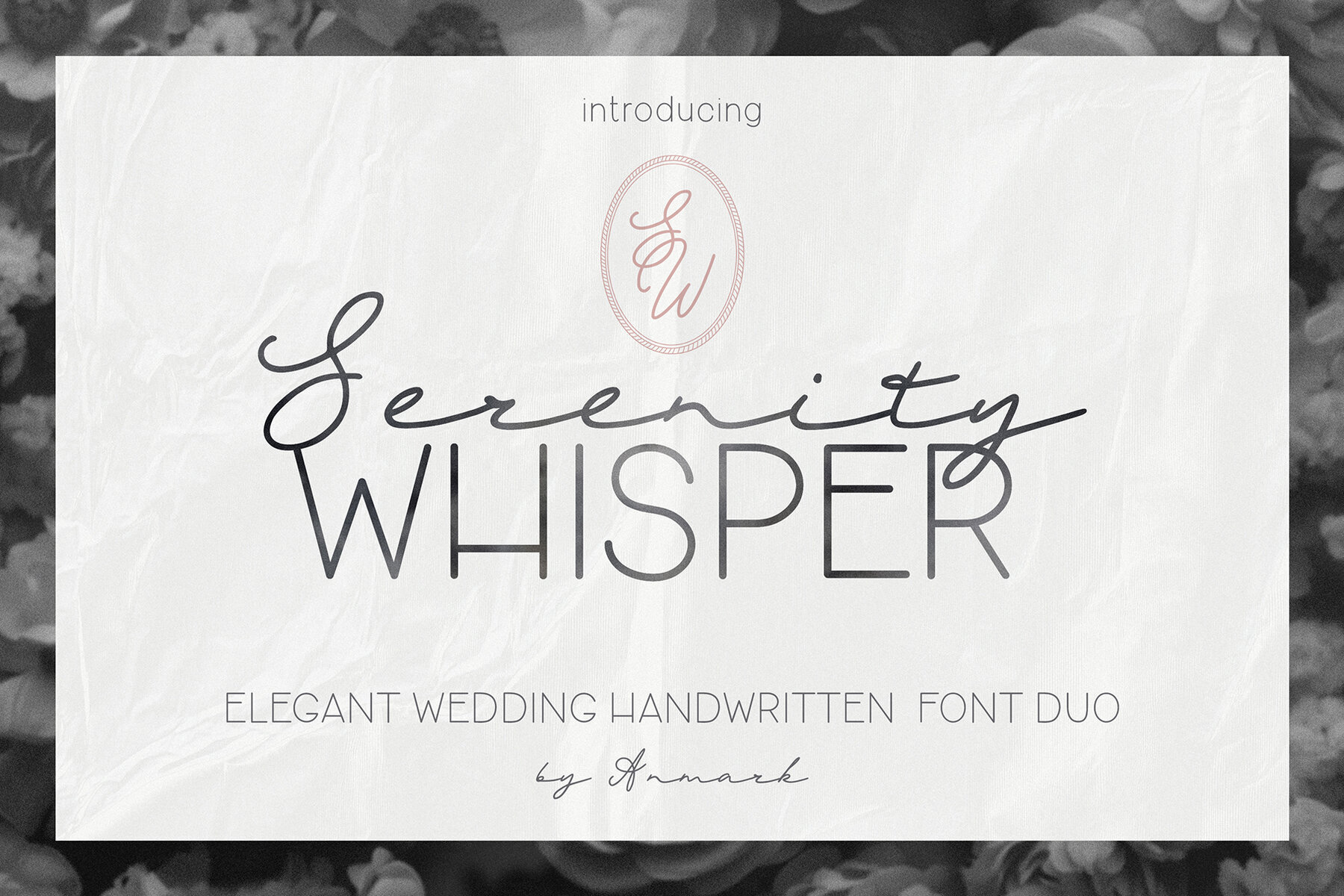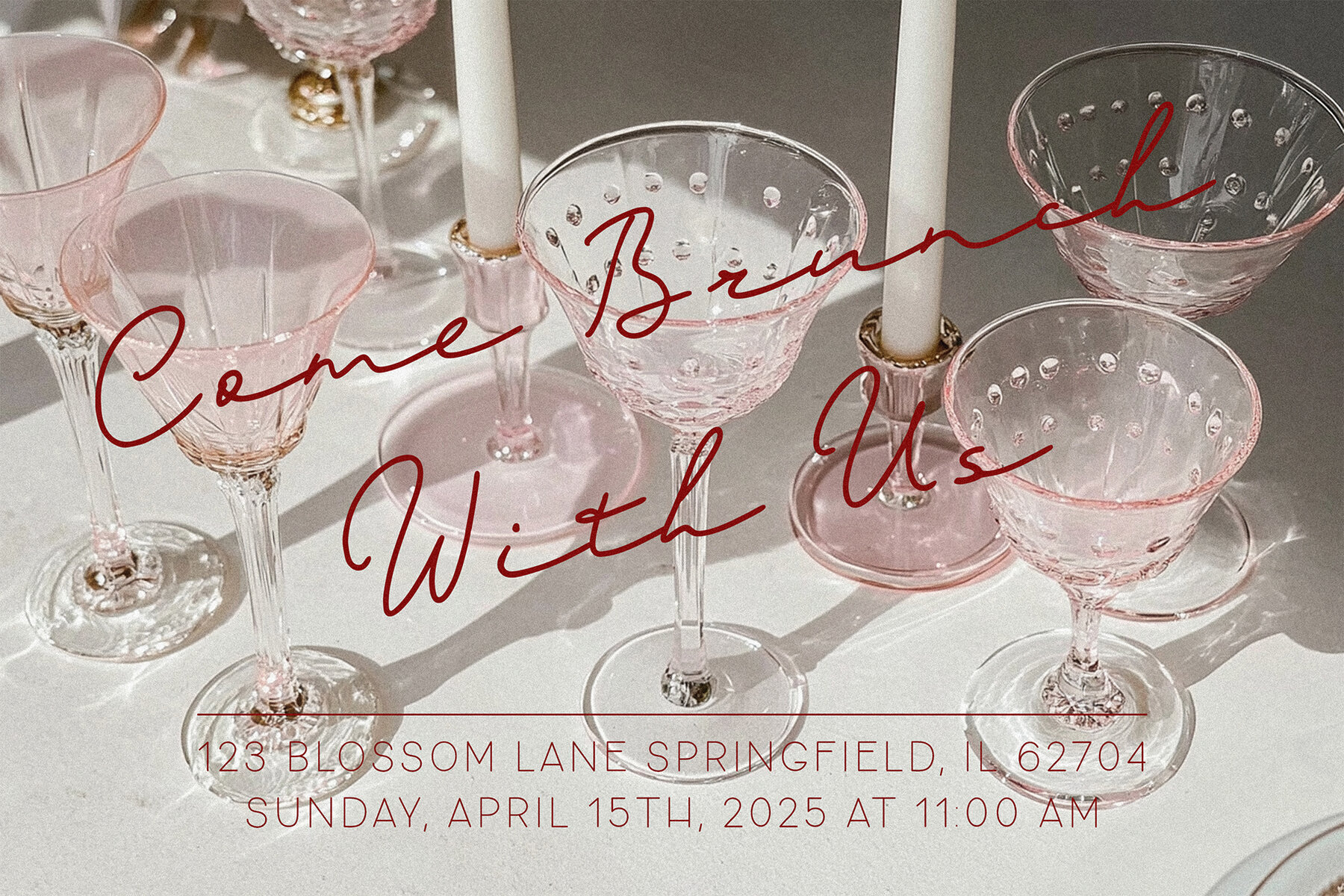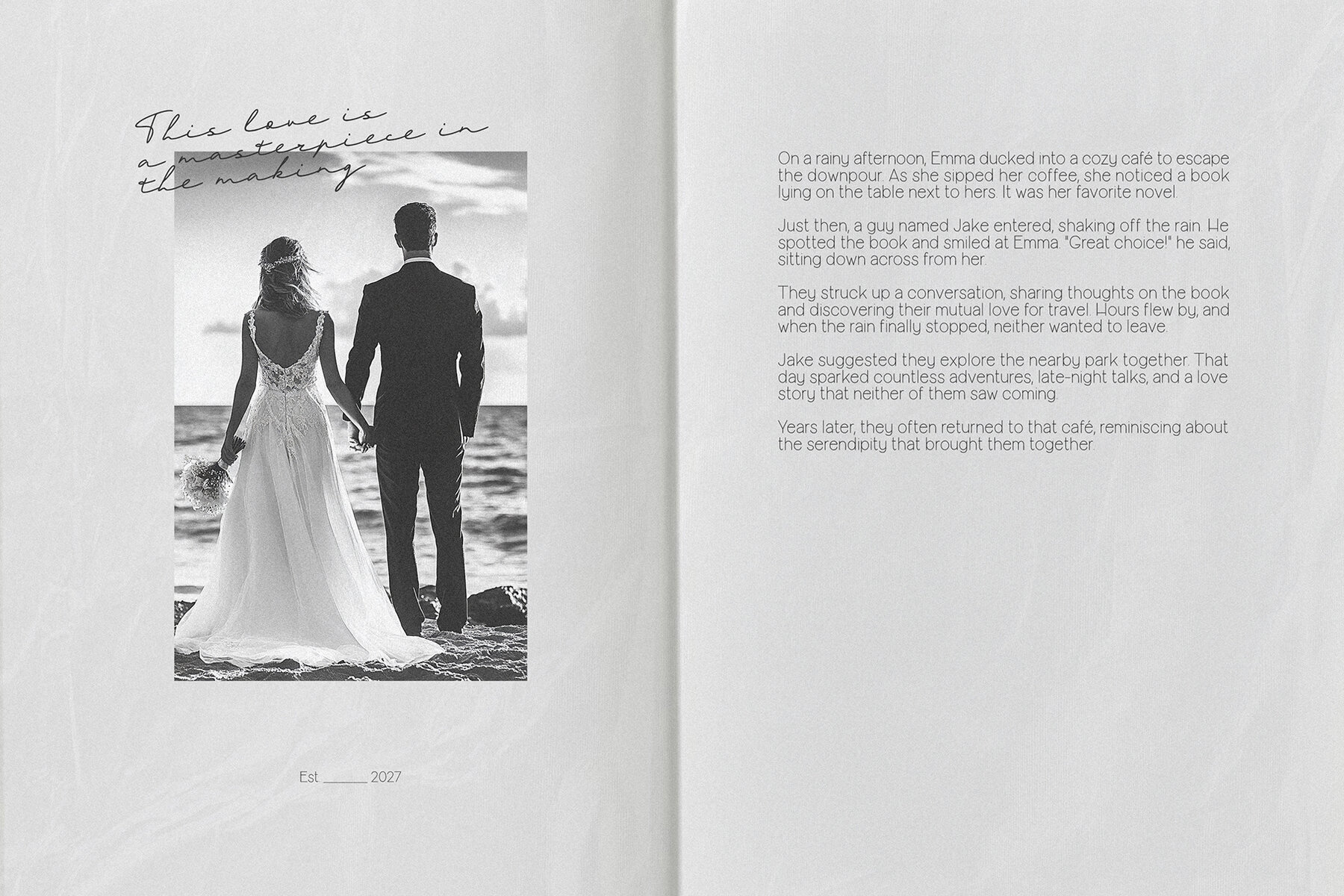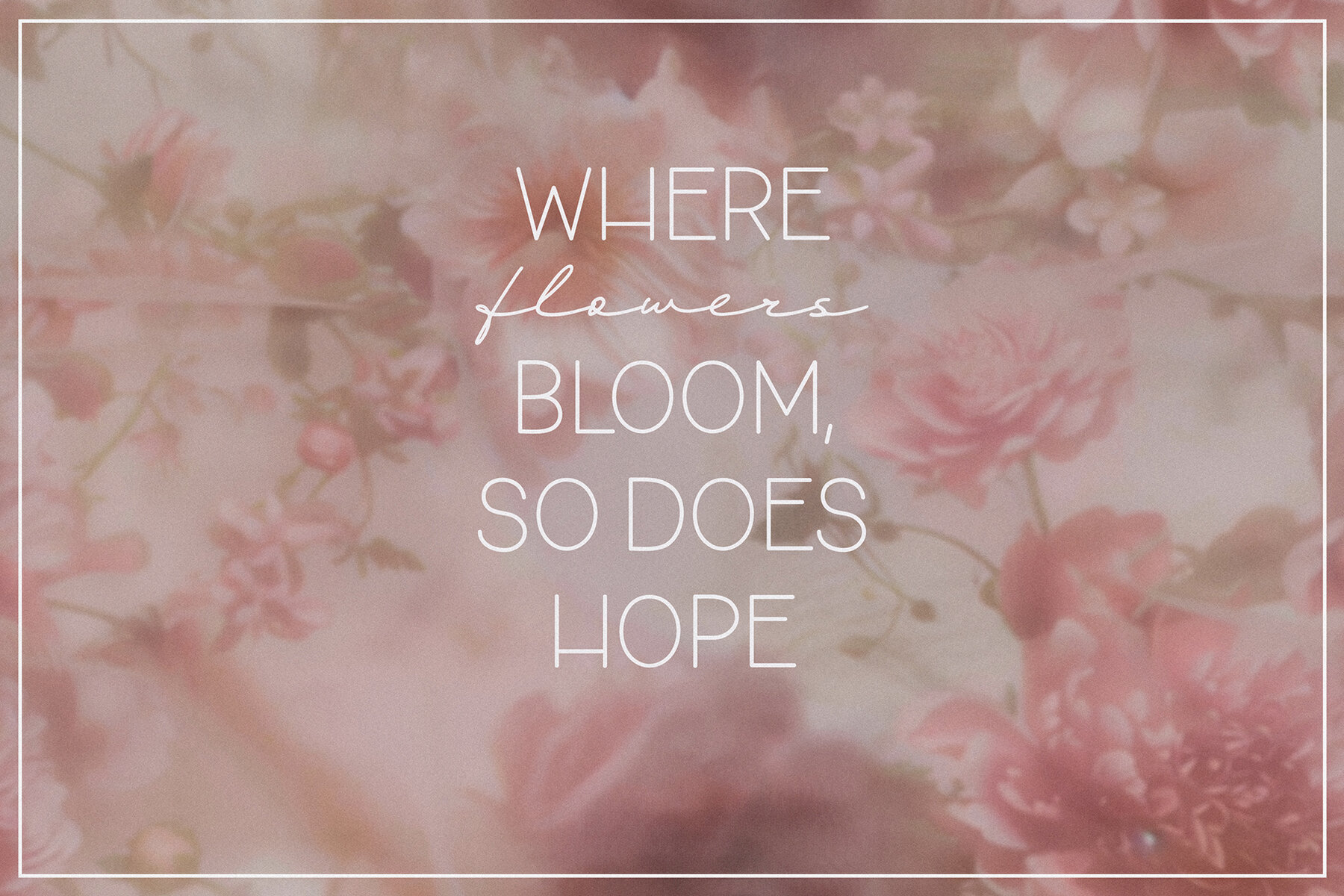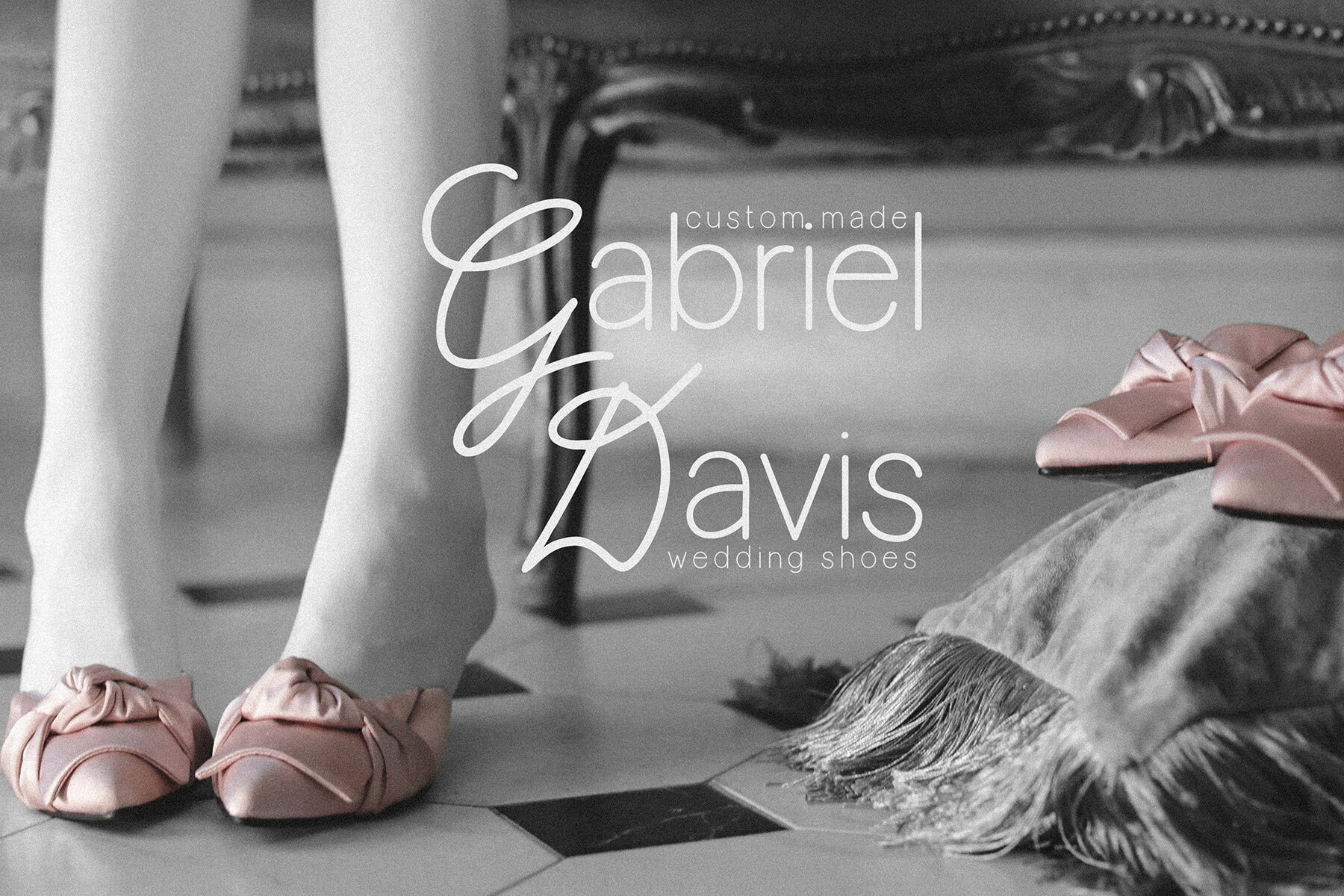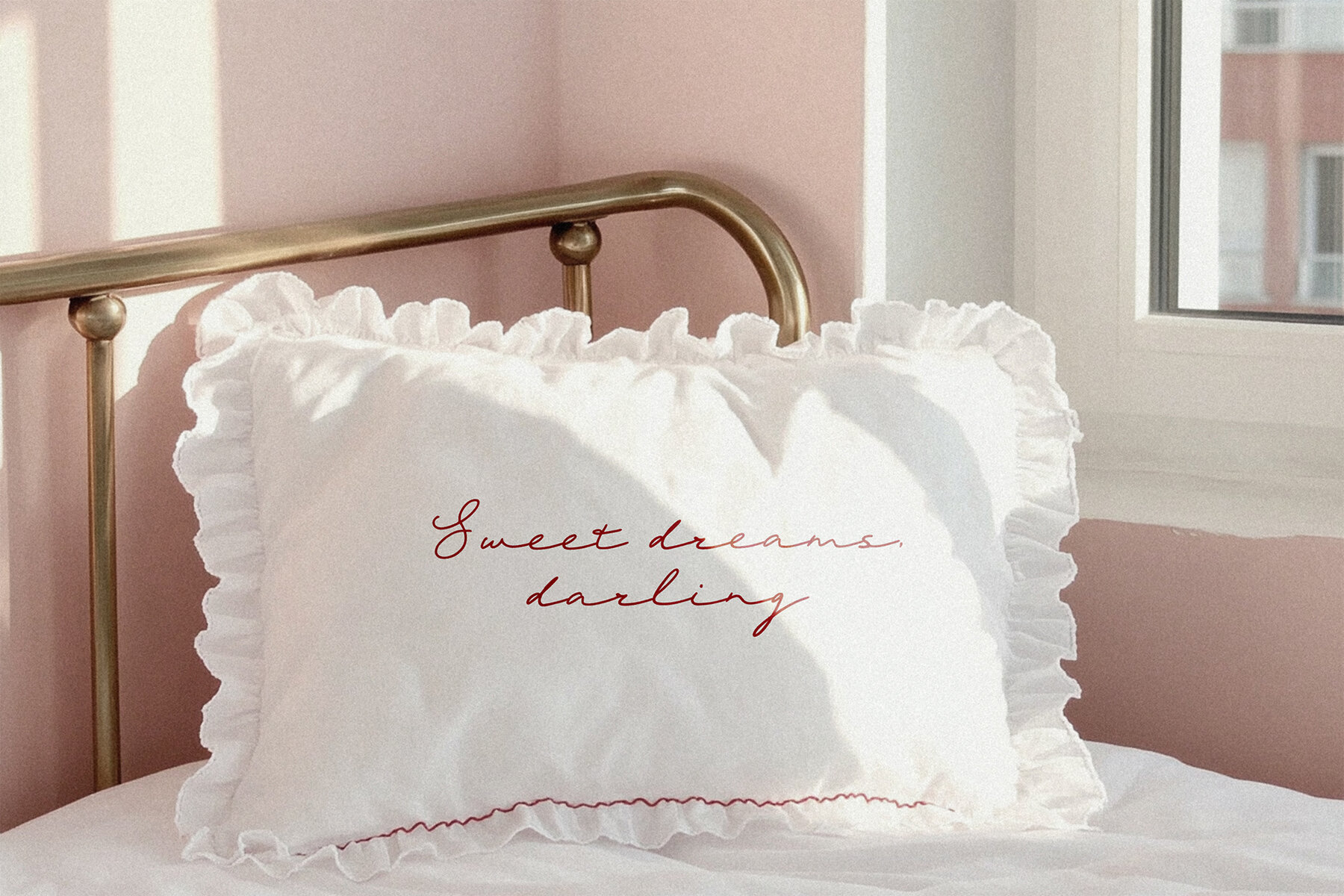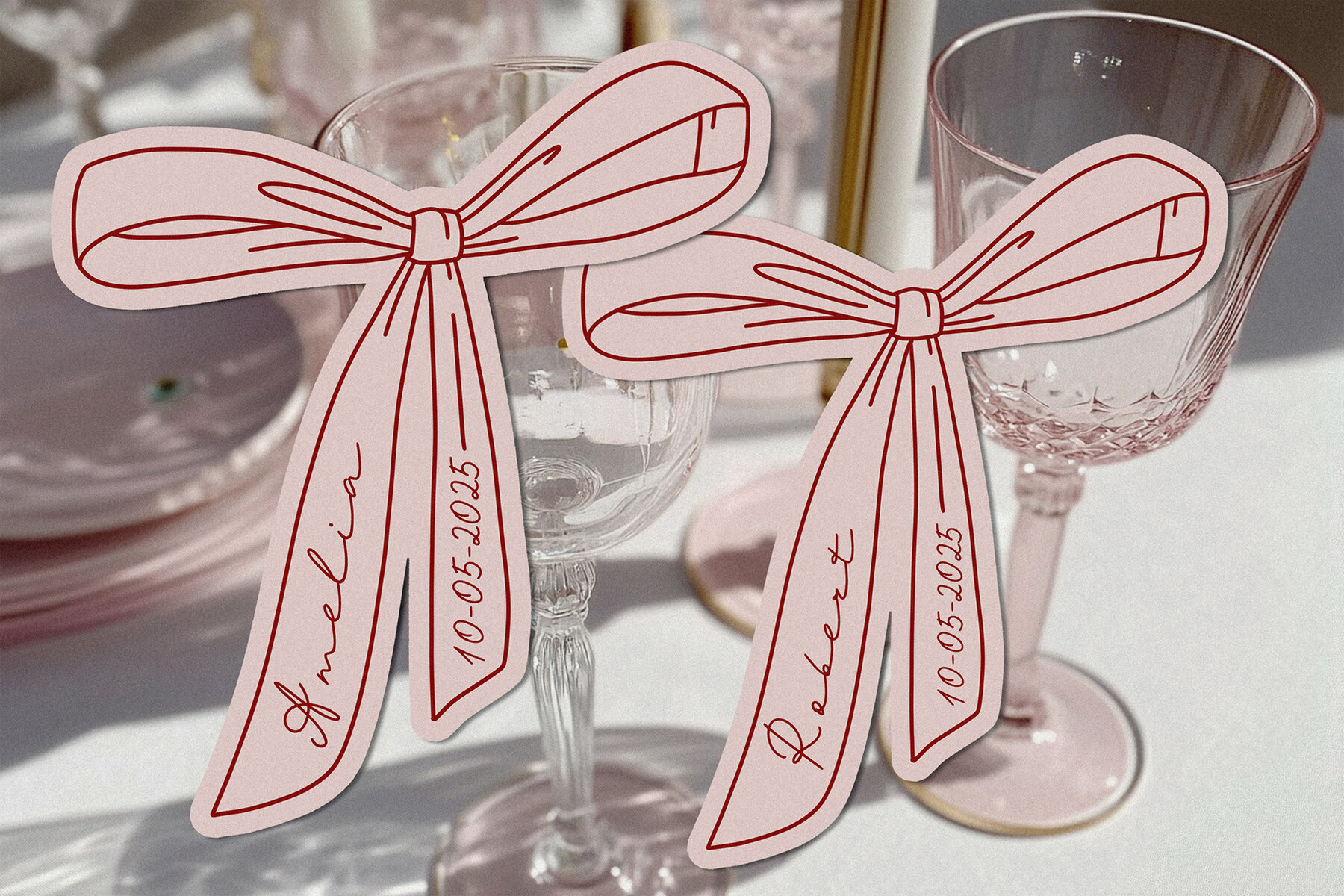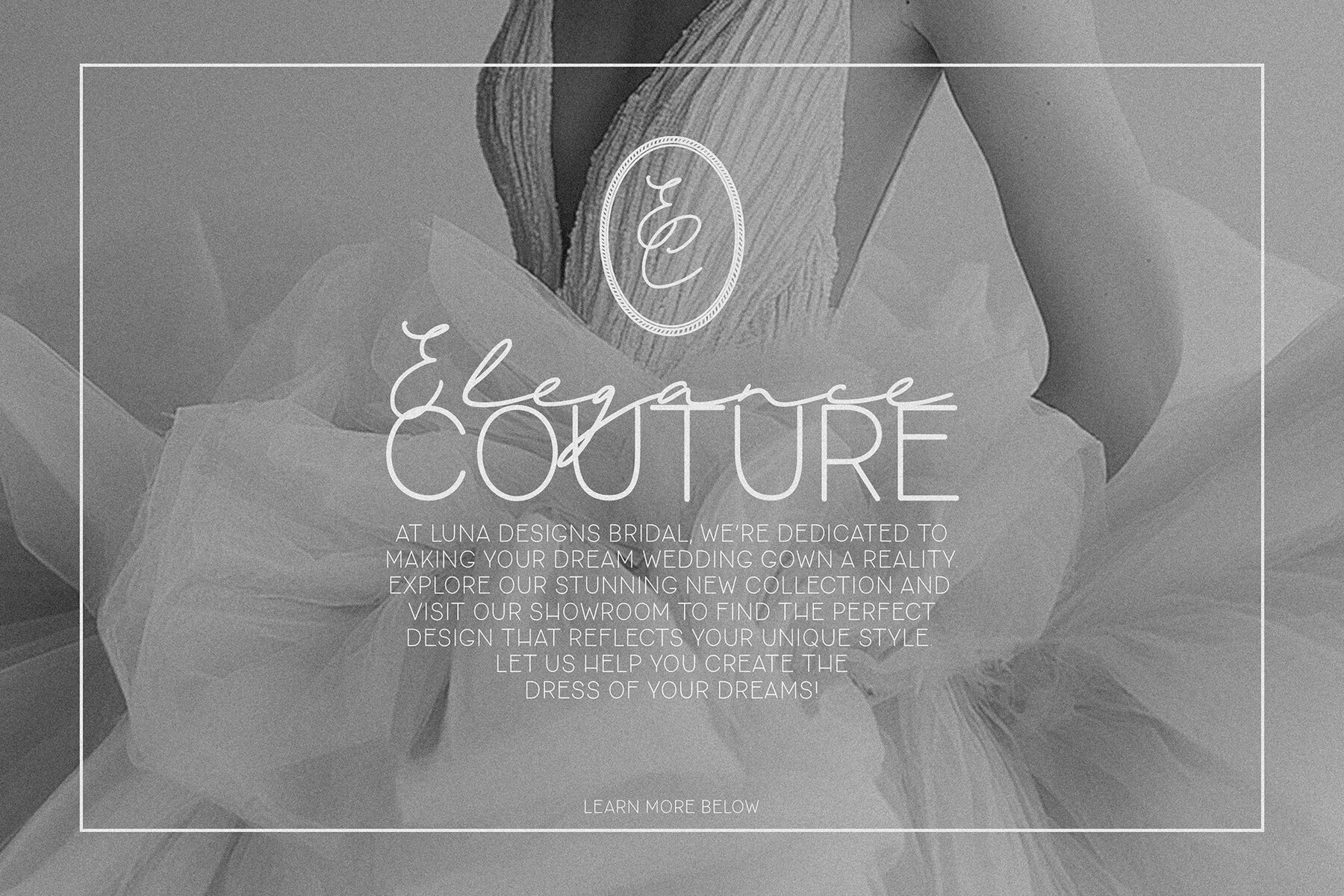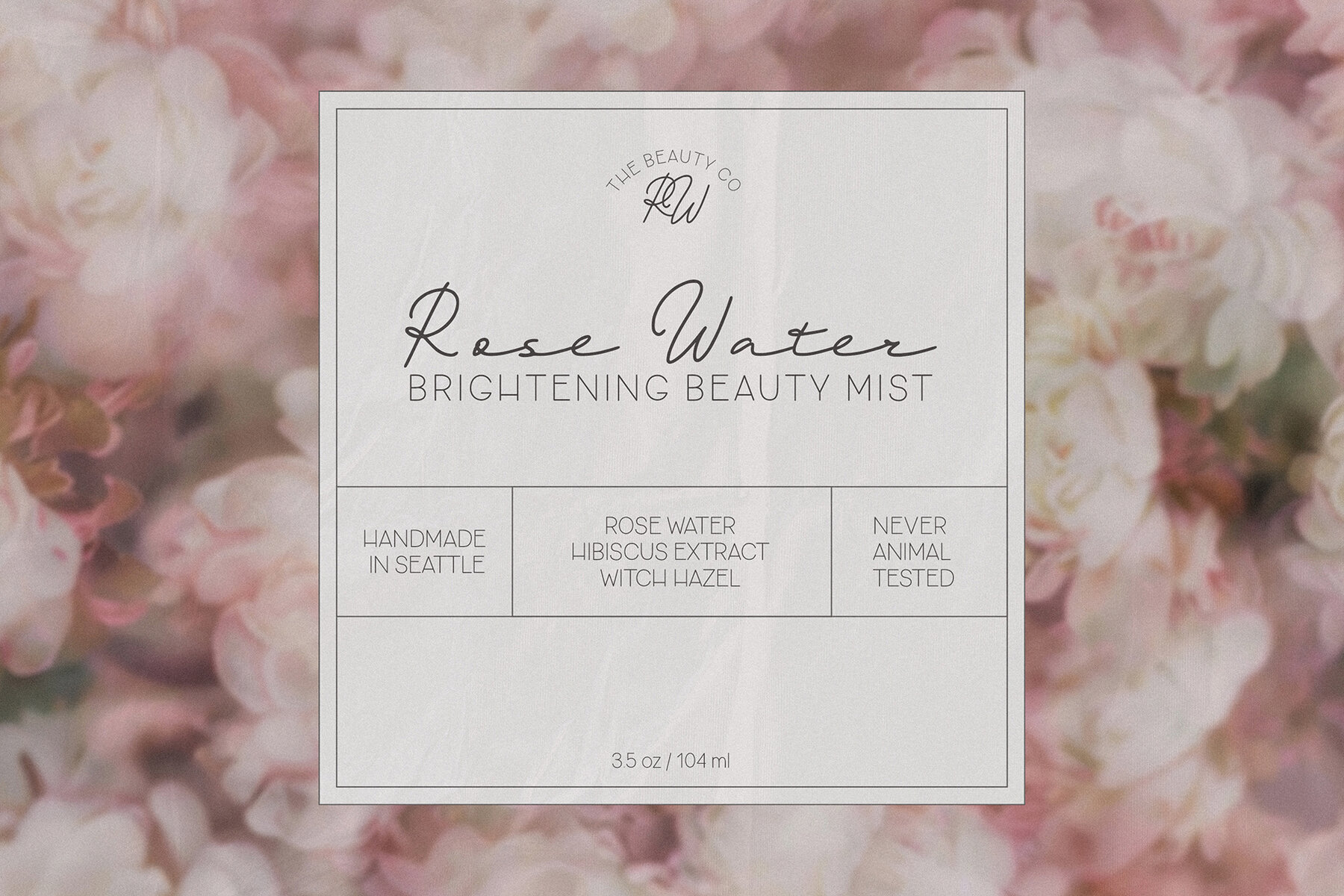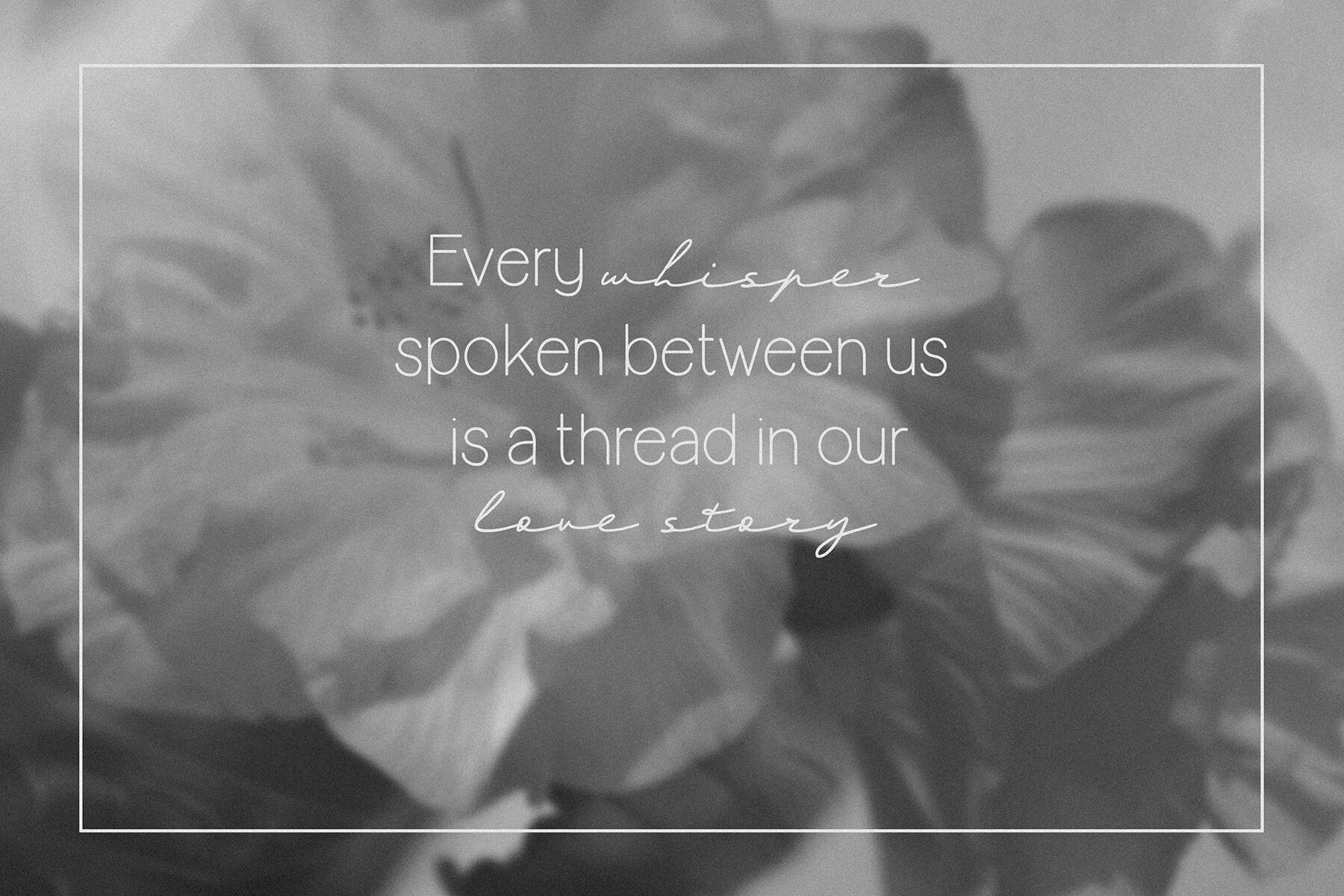
Serenity Whisper Font
Serenity Whisper Sans Serif
Serenity Whisper Script
Serenity Whisper is a beautifully crafted handwritten font duo that seamlessly blends the elegance of Serenity Whisper Sans Serif with the charm of Serenity Whisper Script. This versatile typeface set is perfect for adding a delicate, sophisticated touch to your creative projects. Ideal for wedding stationery, invitations, logos, and packaging, Serenity Whisper imbues your designs with a personal flair that captures attention.
With graceful lines and refined aesthetics, Serenity Whisper is an excellent choice for branding, social media graphics, greeting cards, and art prints. Whether you're crafting a romantic invitation or a sleek, modern logo, this font duo brings tranquility and elegance to any project. Serenity Whisper also includes robust multilingual support, making it a truly global solution for designers. Embrace the serene sophistication of Serenity Whisper to enhance your next design endeavor.